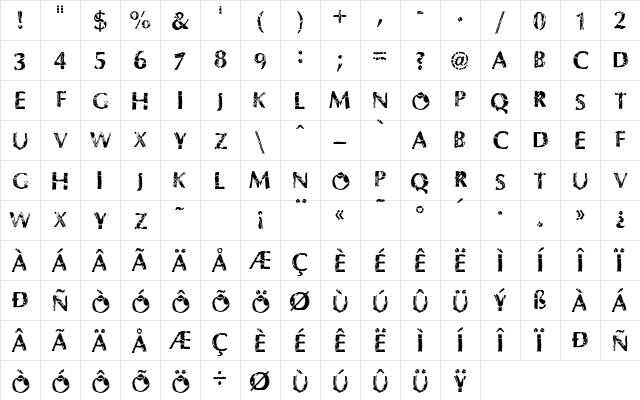
P22 Dinosaur Fontasaurus Text Fontasaurus Text
Style: Fontasaurus Text
Complete P22 Dinosaur Fontasaurus Text glyph index. Displaying only characters natively supported by P22 Dinosaur Fontasaurus Text font.
Design Context for P22 Dinosaur Fontasaurus Text
P22 Dinosaur Fontasaurus Text is a composed and adaptable typeface that performs quietly and consistently across a wide range of design contexts.